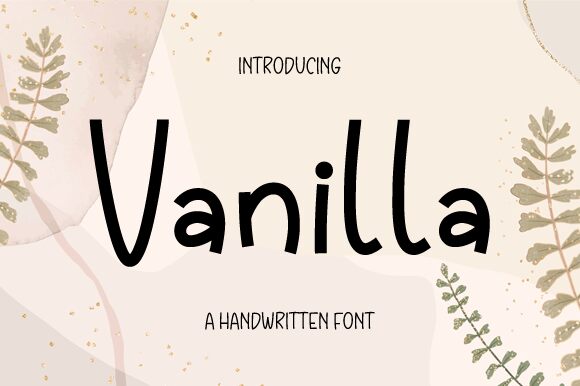
Vanilla
Vanilla, crafted by Nirmala Creative, is a charming font that brings a touch of whimsy and personality to any project. With its handwritten, comic style and semi-light weight, Vanilla exudes a casual yet captivating aesthetic. The playful irregularities in its letterforms convey a sense of warmth and approachability that's perfect for invitations, branding, advertising, and children’s literature.
The font’s organic curves and subtle variations in stroke width create an authentic hand-drawn feel that stands out against the stark precision of digital typefaces. Vanilla's unassuming elegance makes it highly versatile-equally at home in a cozy café menu as it is on the pages of a graphic novel.
This font's delightful character ensures that it will leave a lasting impression wherever it is used. Its visual appeal lies not only in its endearing imperfections but also in the balance it strikes between readability and stylistic flair. Vanilla is an excellent choice for creatives looking to inject personality into their work without sacrificing clarity or professionalism.